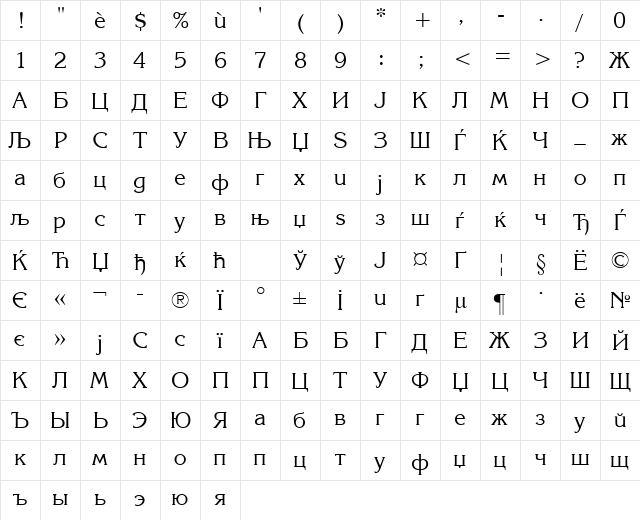
Macedonian Karina Regular
Design Context for Macedonian Karina Typeface
Macedonian Karina takes a measured approach to typography — its balanced proportions and neutral character make it a reliable workhorse for both digital and print work.